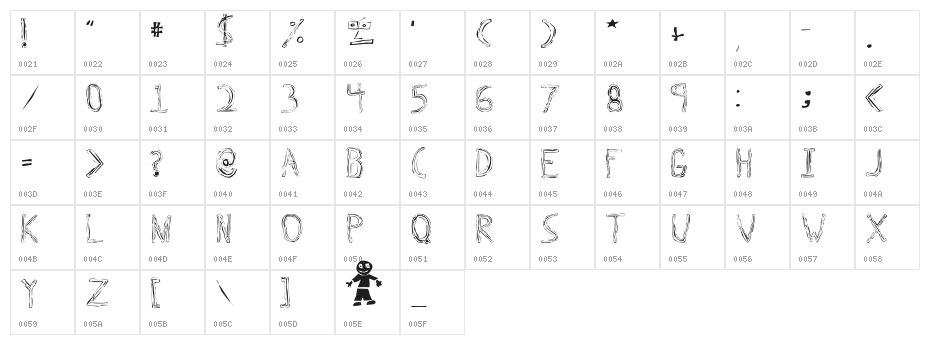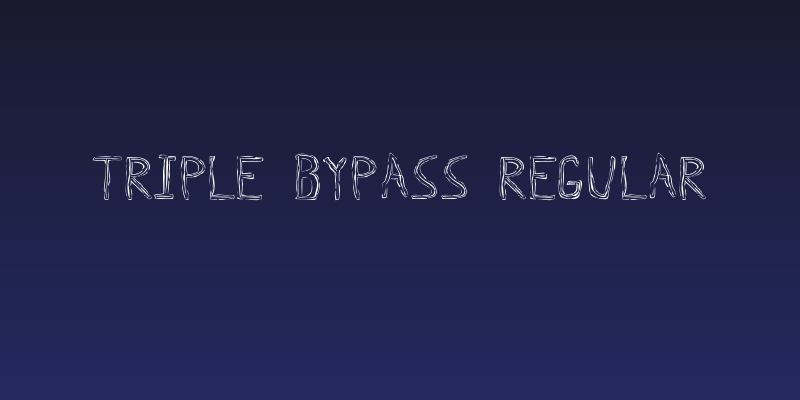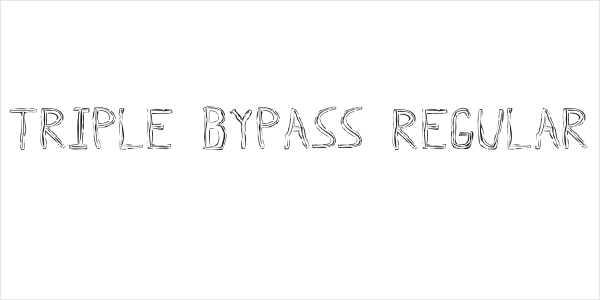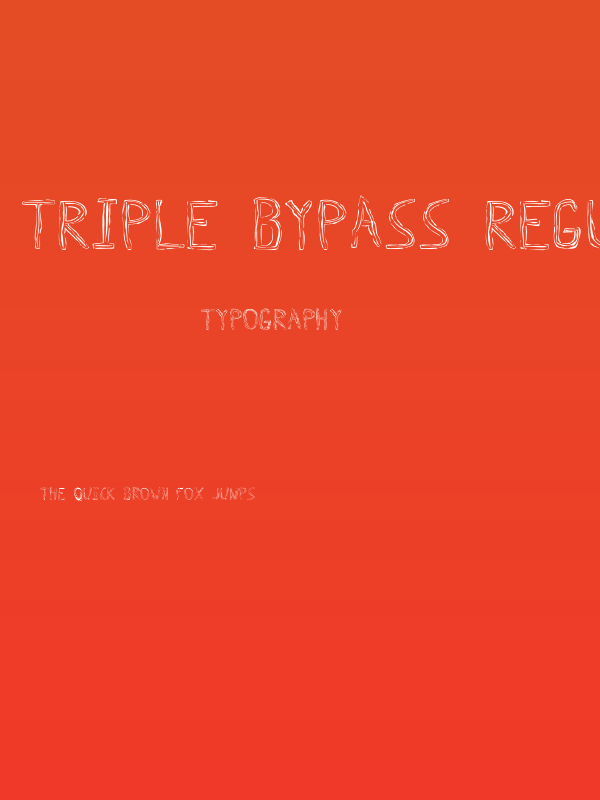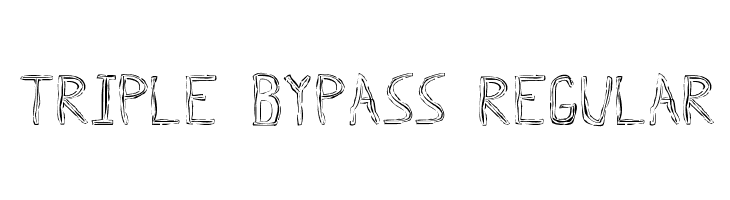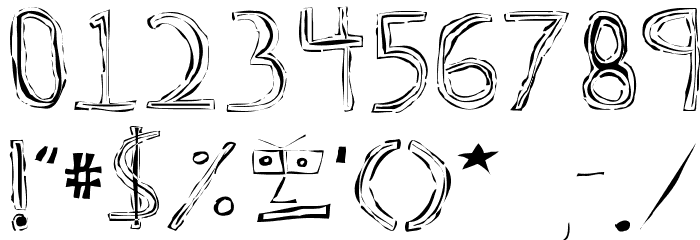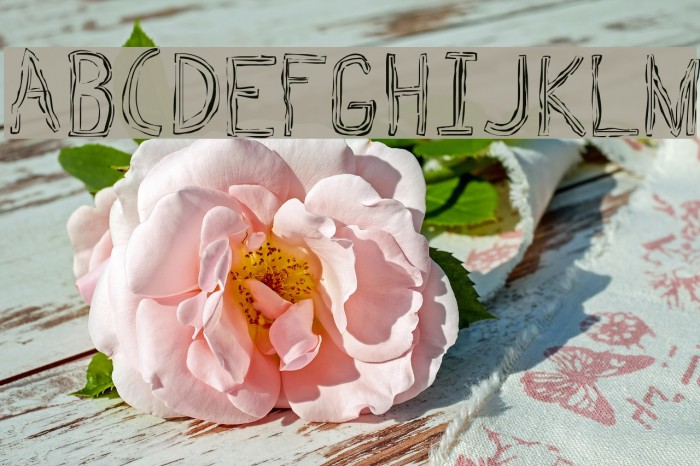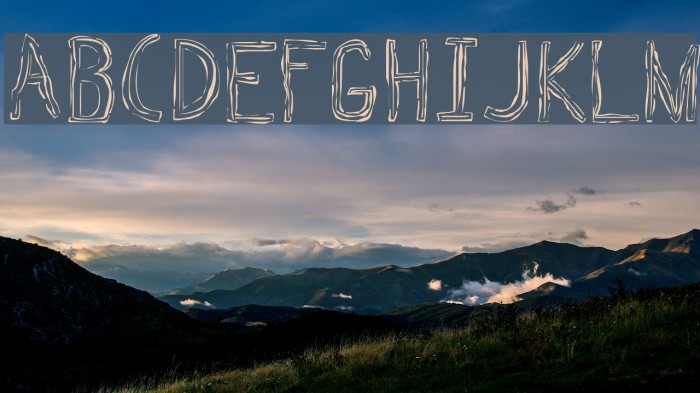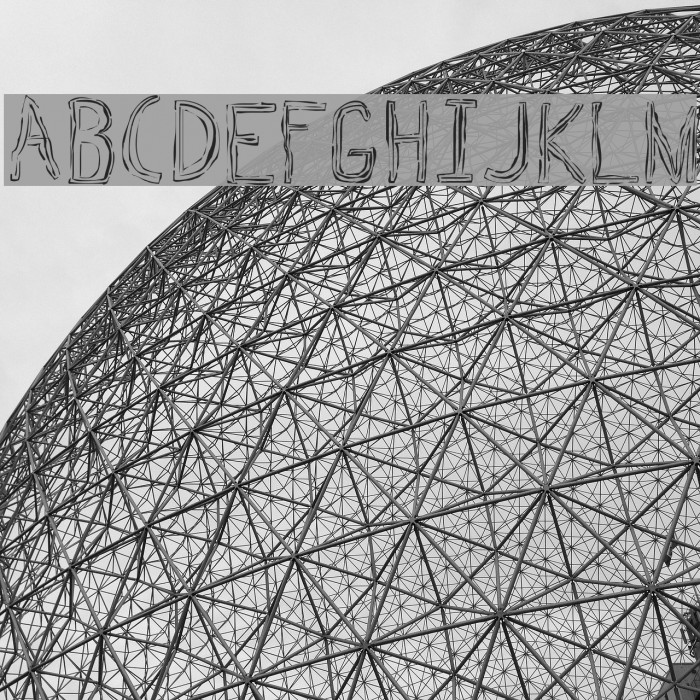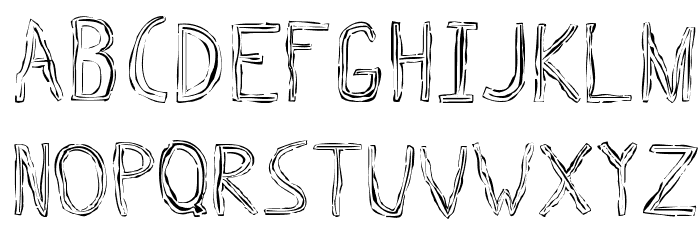
Triple Bypass Regular Font
Triple Bypass Regular Description
This font features a unique, hand-drawn style with a sketch-like appearance that gives it a raw and artistic feel. The characters are outlined with irregular, jagged lines that create a sense of movement and energy. Each letter has a distinct personality, with varying stroke thicknesses that add to its dynamic look. The uppercase and lowercase letters maintain a consistent style, while the numbers and special characters complement the overall aesthetic. This font is perfect for projects that require a creative and unconventional touch.
| Overall Style | Artistic, Creative |
| Use Case | Headlines, Posters, Creative Branding |
| Proposed Projects | Ideal for artistic projects, posters, album covers, and creative branding. |